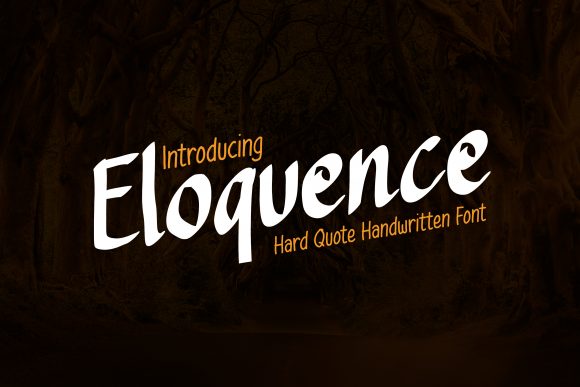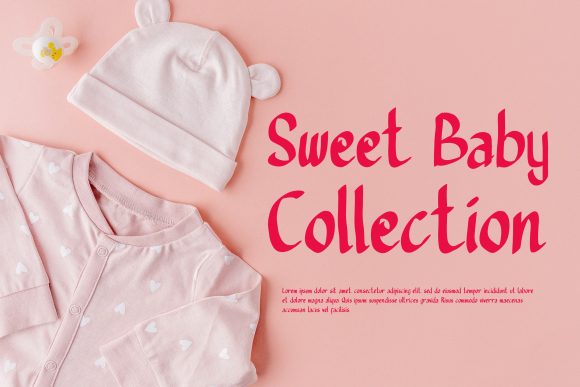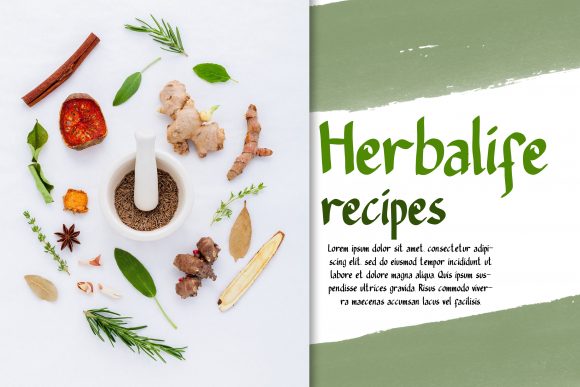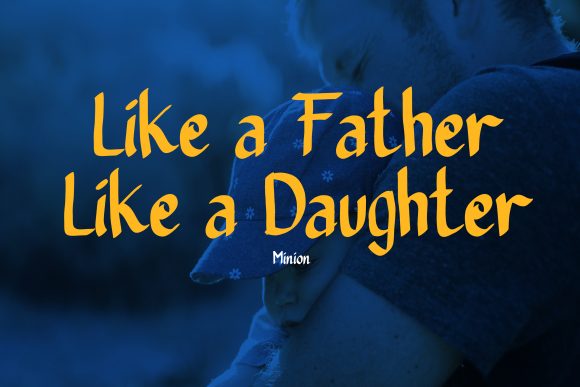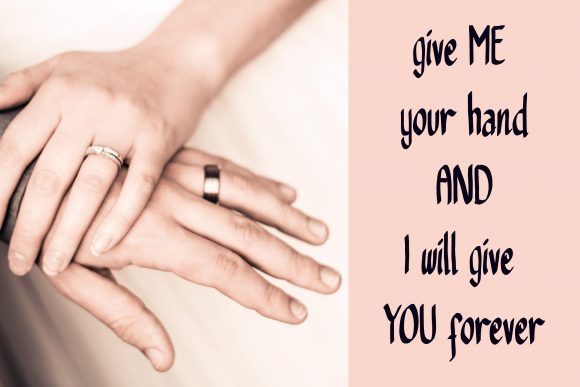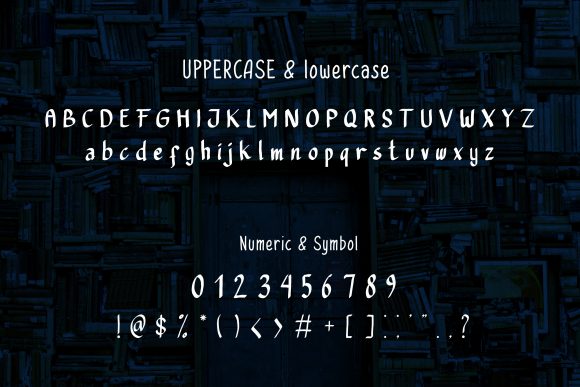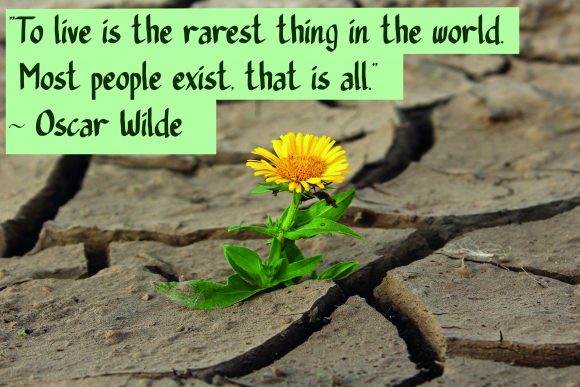
Eloquence
About Eloquence Font
Eloquence is a modern handwritten font that is readable, bold and stylish. It is defined by smooth curves and is perfect for fashion branding or editorial designs. Add it confidently to your projects, and you will love the results.